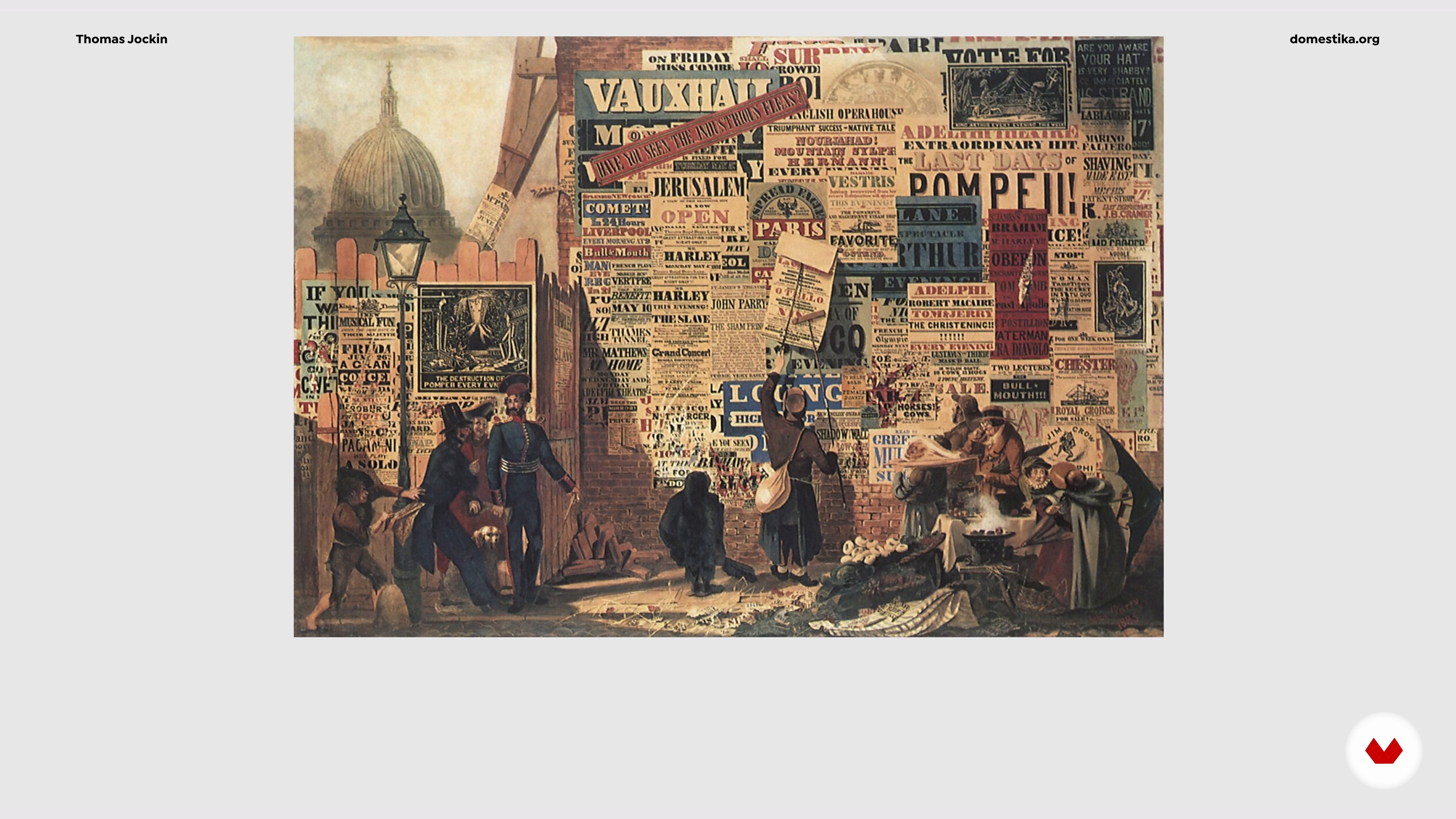
Historical Reference
About the video: Historical Reference
“In this lesson, I will go over the importance of history in typeface design. Typography is, in fact, a developed historical process. Let's go over some examples to portray this.”
In this video lesson Thomas Jockin addresses the topic: Historical Reference, which is part of the Domestika online course: Typography for Designers: Create Fonts for the Marketplace. Learn a simple yet effective research method to produce unique typefaces that communicate your vision.
“Historical Reference In the last lesson, we went over how to succeed in the marketplace. In this lesson, we'll go over the importance of history in typeface design. Design is a very interesting discipline as it sits between the edge of the cultural/historical dimension, as well as the technical dimension of a craft. Obviously, this whole thing about font file formats and fonts and widths and styles and character sets, there's all these technical aspects of the production of making fonts, but there is also the cultural/historic side of it too, because the nature of our shared language made v...”